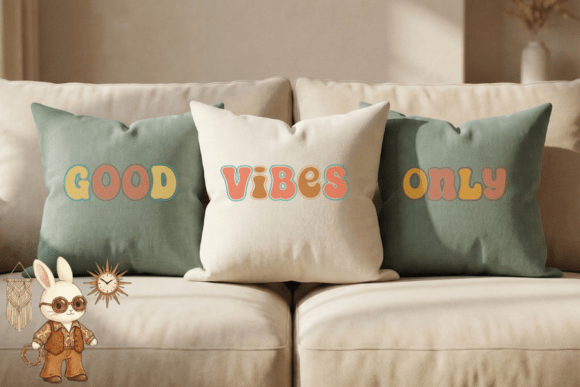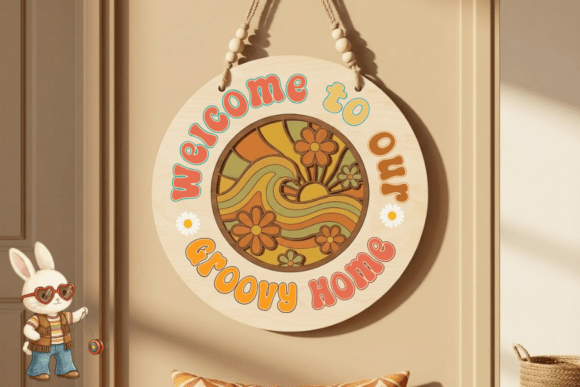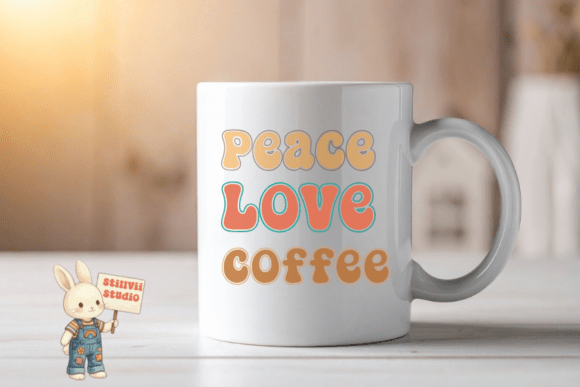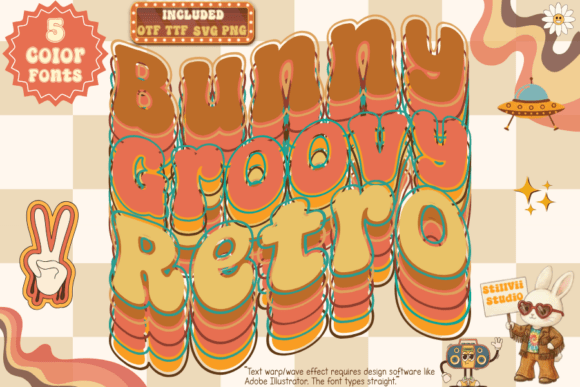
Groovy Times Ahead: Unleashing the Power of Bunny Groovy Retro Font
I’ll never forget the time I was working on a retro-themed party invitation design. My client wanted something that would transport their guests back to the 1970s, but I was struggling to find the perfect font. That was until I stumbled upon the Bunny Groovy Retro font. It was love at first sight! The chunky, bubble-like letters seemed to scream “fun” and “nostalgia,” and I knew I had found the perfect fit for my project.
The Bunny Groovy Retro font is part of the Bunny Groovy Retro Color Font Bundle, which includes fully colored OTF files perfectly optimized for professional design software. This font is perfectly suited for bold apparel designs, nostalgic festival posters, and eye-catching social media branding that needs to pop.
- ✨ The font’s unique, chunky design that adds a pop of 70s nostalgia to any project
- ✅ The included SVG color files, which make it easy to maintain a perfect, warm vintage palette across all digital and print merchandise
- 💥 The font’s versatility – it can be used for a wide range of projects, from retro-themed parties to modern streetwear brands
- 🎉 The fact that it pairs perfectly with simple, clean sans-serifs, allowing the decorative layers to take center stage
- ⚠️ The font’s bold design may not be suitable for projects that require a more subtle look
- 🤔 Some users may find the font’s chunky design difficult to read in smaller sizes
The Bunny Groovy Retro font was inspired by the fun, carefree spirit of the 1970s. The font’s designer wanted to create a typeface that would capture the essence of the decade’s iconic style, from disco balls to bell-bottom jeans. The result is a font that’s equal parts nostalgic and modern, with a bold, eye-catching design that’s sure to turn heads.
| Is Bunny Groovy Retro Font easy to read? | The font’s bold design may not be suitable for small text sizes or projects that require a more subtle look. |